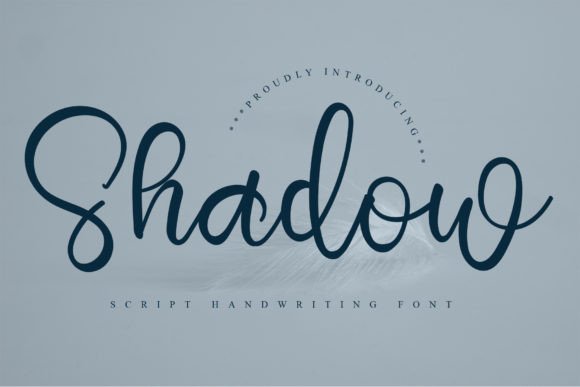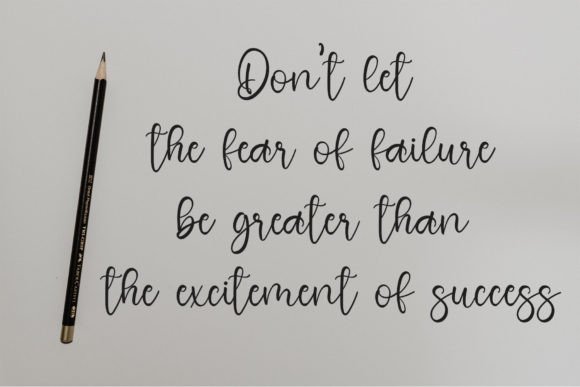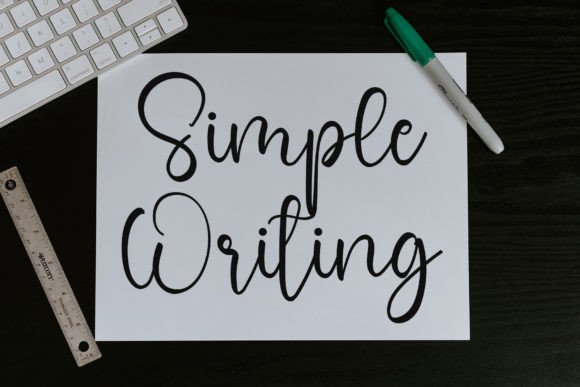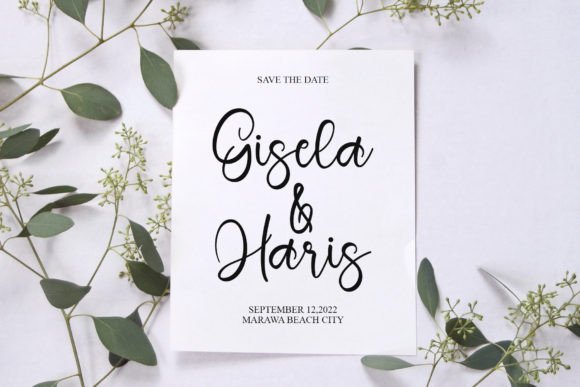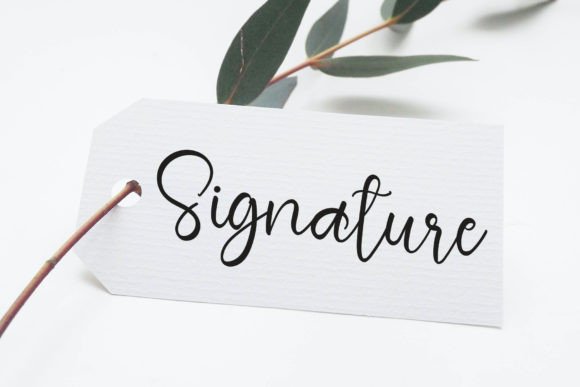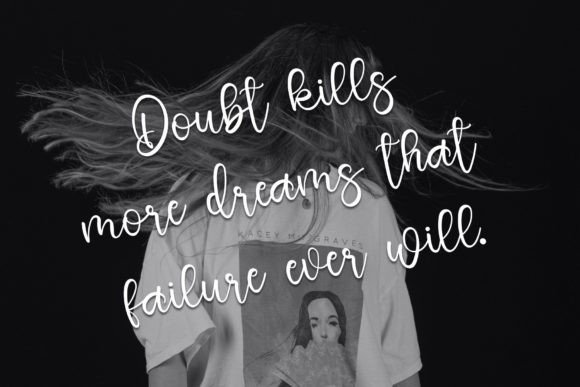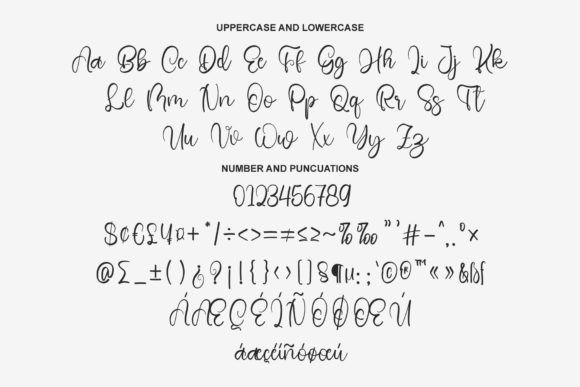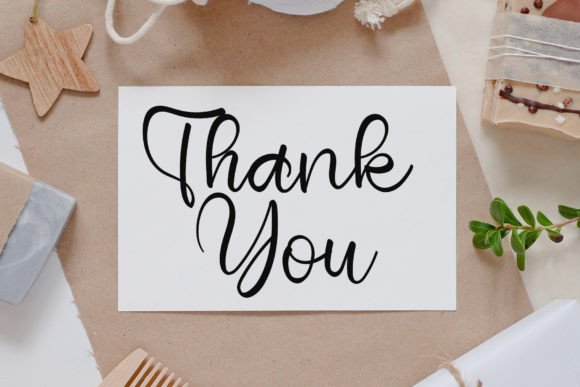
Shadow Font
About Shadow Font
“Shadow” is a thin and beautifully handwritten font characterized by distinct and well-rounded letters, making it a masterpiece in its own right. With its versatility and elegance, this font is a valuable choice for various design projects, allowing you to create spectacular designs.
The appeal of “Shadow” lies in its ability to convey a sense of delicacy and refinement. The thin and well-crafted letters create a visually appealing aesthetic that can enhance a wide range of design elements, making it suitable for numerous creative applications.
One of the standout features of “Shadow” is its versatility. It can seamlessly adapt to different design themes and moods, making it a valuable asset for your creative projects. Whether you’re working on minimalist and sophisticated designs or projects that require a delicate touch, “Shadow” is a font that can accommodate your vision.
When you incorporate “Shadow” into your projects, you can expect your creations to exude a sense of elegance and beauty. This font has the power to make your designs stand out and leave a lasting impression on your audience.
In summary, “Shadow” is not just a font; it’s a design asset that can enhance your creative projects with its thin and beautifully handwritten style. Its versatility and distinctiveness make it a valuable addition to your design toolkit. Feel confident in using “Shadow” to elevate any creation, as it has the potential to bring a sense of delicacy and refinement to your designs!